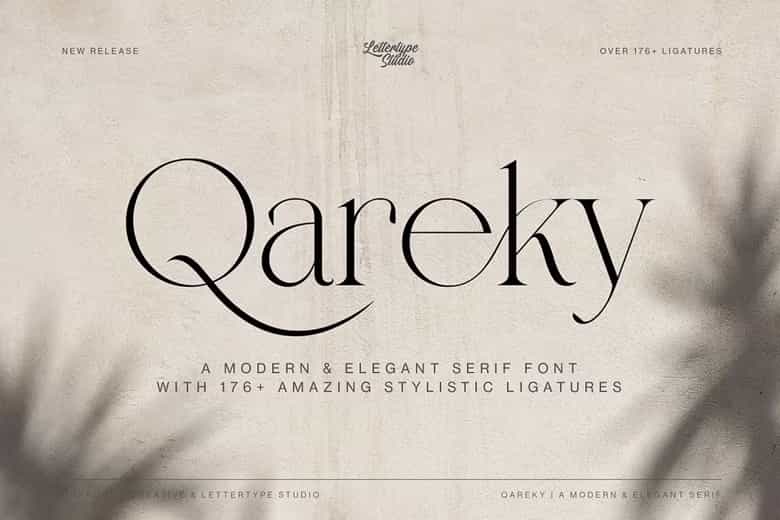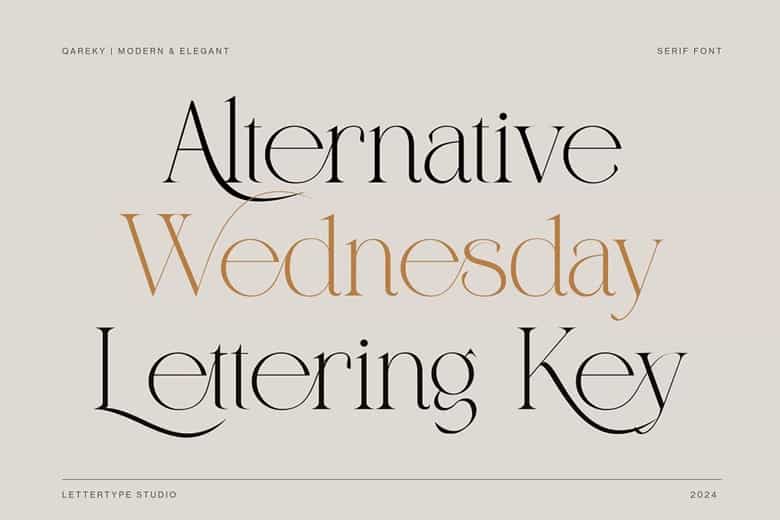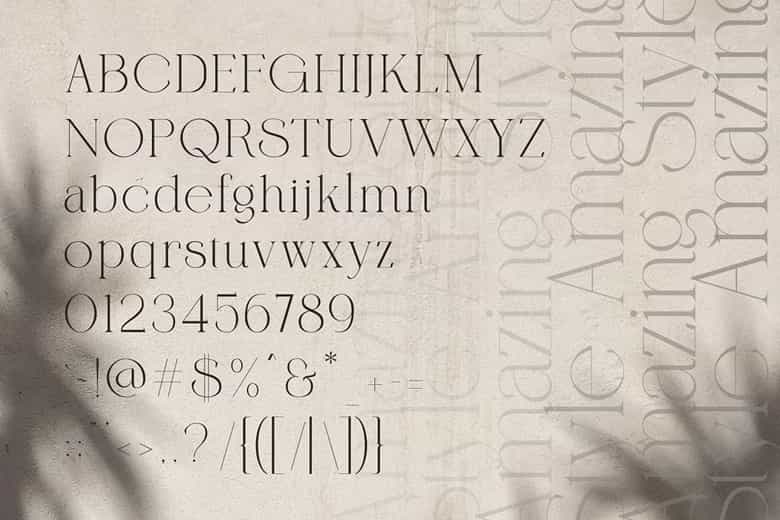
Qareky is an optimum class serif typeface with trendy glamorous serif used chic that has given the lead from 18th century primer style.. Great for branding, magazine style, web type and etc. These fonts are elegant and are geometric and luxurious and have clean elegant lines so your projects will pop off the page. For designers who prefer pin-point accurate typography requirement, which can be styled to perfection.